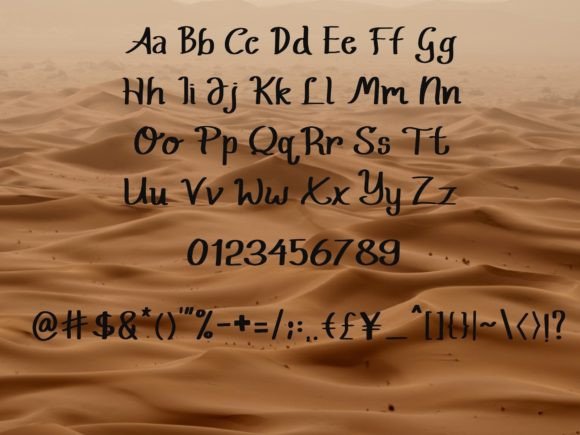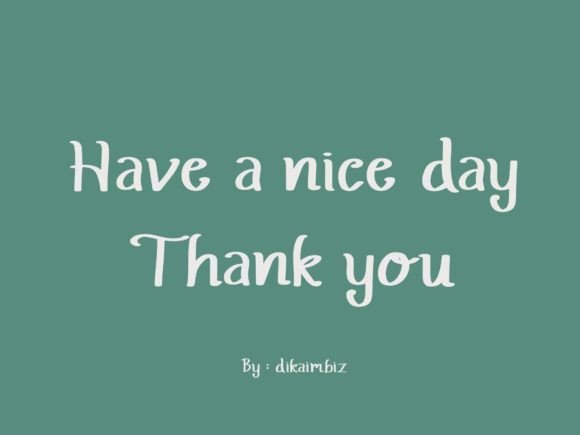
Little Mirai Font – Free Download
Introduction to Little Mirai Font
Little Mirai is a simple and playful script handwriting font.
This versatile script font has a wide spectrum of applications ranging from greeting cards to headlines and is guaranteed to add a romantic feel to your next project .